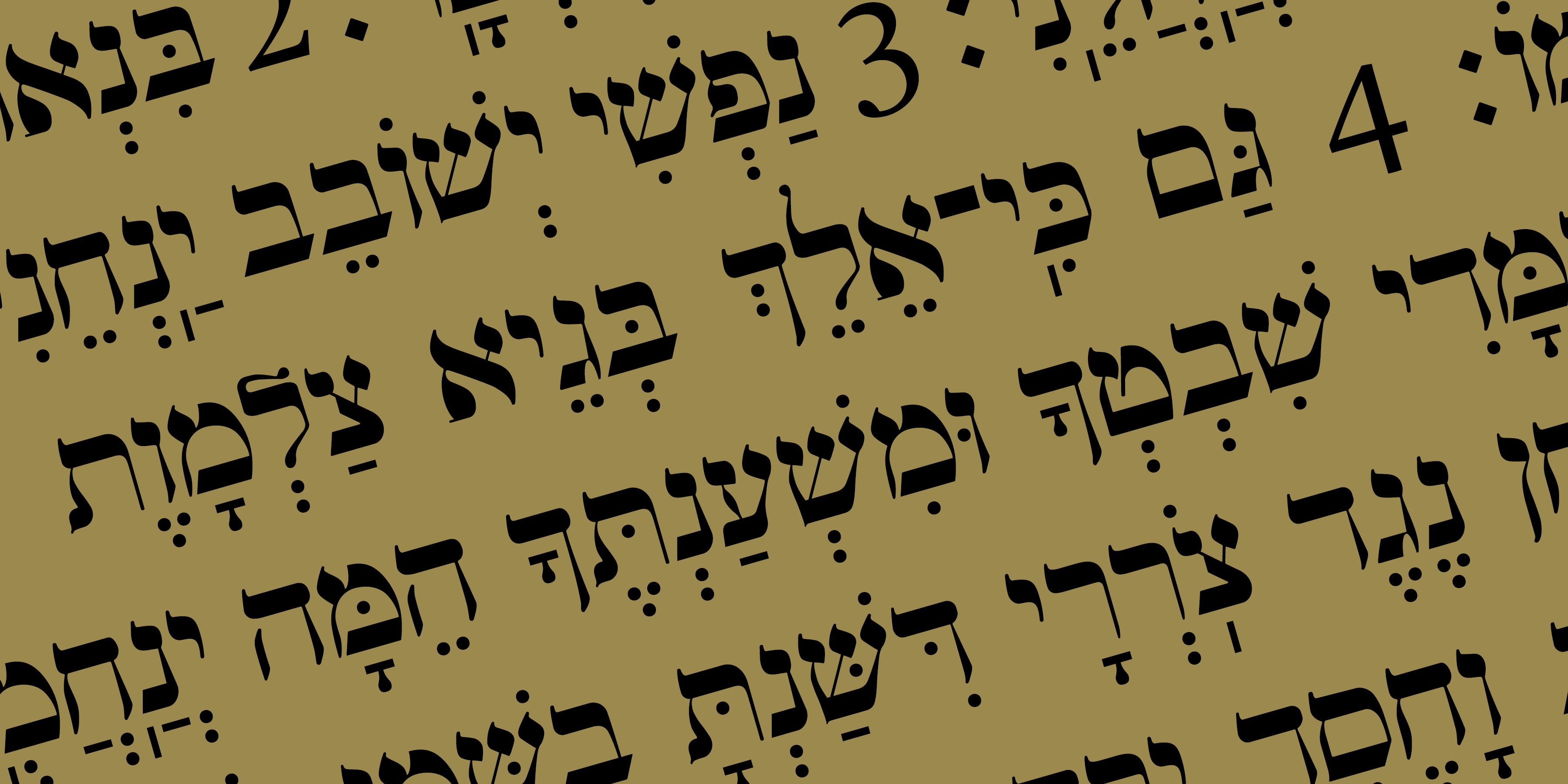
The Hebrew Siddur Font is an essential and specialized choice for projects that demand the authentic and traditional representation of Hebrew text, specifically for religious, academic, or cultural contexts. It's perfectly suited for prayer books (siddurim), Torah commentaries, Jewish scholarly texts, synagogue publications, educational materials for Hebrew studies, and any design that requires a clear, respectful, and traditionally styled Hebrew typeface. Its design prioritizes legibility and adherence to historical forms, making it ideal for conveying a sense of heritage, reverence, and spiritual depth.
What makes Hebrew Siddur Font so exciting is its dedicated design to faithfully reproduce the appearance of Hebrew typefaces traditionally used in classic Jewish texts. This often means carefully crafted letterforms that balance historical accuracy with modern readability, ensuring that both scholars and congregants can read the text comfortably. This font isn't just about characters; it's about preserving and conveying sacred and historical knowledge with dignity. It excels at delivering text with utmost clarity and an undeniable sense of cultural authenticity, making your content feel both traditional and accessible. The meticulous attention to detail in its vowel points (niqqud) and cantillation marks (trop) is often a key feature.
The Hebrew Siddur Font family typically focuses on variations that enhance its readability and traditional appeal. You will generally find a strong regular style that embodies its core authentic aesthetic. Depending on the specific design, some versions might offer bold or light weights for different emphasis, or specialized sets for niqqud (vowel points), trop (cantillation marks), and other diacritics, which are crucial for accurate Hebrew typesetting. The emphasis is on providing a consistent yet highly precise visual identity that resonates with its religious and scholarly inspirations.
Whether you're producing a new edition of a prayer book, developing educational resources for Hebrew learners, or creating scholarly works on Jewish texts, the Hebrew Siddur Font Free Download offers an indispensable tool. Its clear readability and robust, traditional appeal make it a premier choice for any project that requires an authentic and reliable Hebrew typeface for religious or academic purposes.